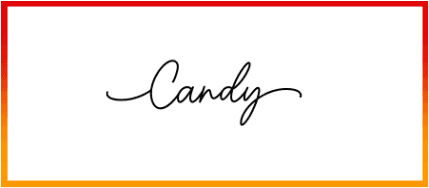
Candy
Candy is a handwritten font created by Aldi Raya Pradipta and released through Graphix Line Studio (2022). It looks like someone actually wrote it by hand: relaxed, friendly and a little imperfect in a good way. You can download it for free and test it with your own words in the preview above.
- Extra characters: 80 copy-and-paste alternates (Private Use Area)
What You Can Type With Candy
With complete upper and lowercase letters and all ten digits, Candy is ready for real wording, not just a single headline. Everyday marks like &, !, ? and @ are there too. Thanks to its accented letters, it also works for Spanish, French, Portuguese and Italian, not just English.
How to Use the Alternate Letters in Candy
Where Candy Works Best
Designers usually reach for fonts like Candy when they're making greeting cards, journal pages and friendly social posts. Its lowercase letters are small compared to the capitals, so set it a size or two bigger than usual. Set it a bit larger than you would a normal text font. Handwriting styles lose their charm once they get too small to read comfortably.